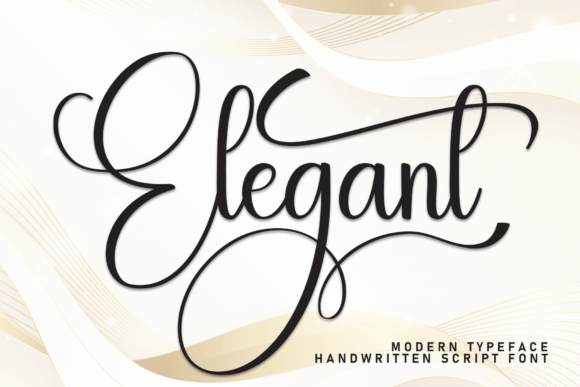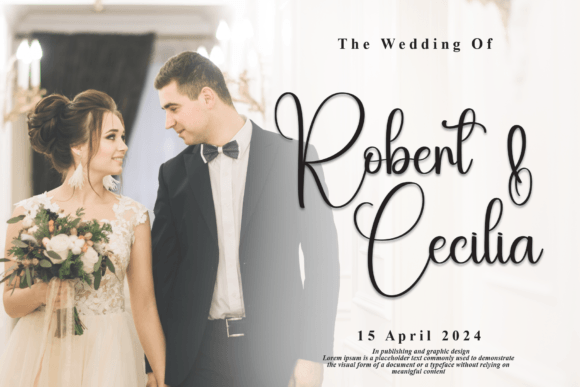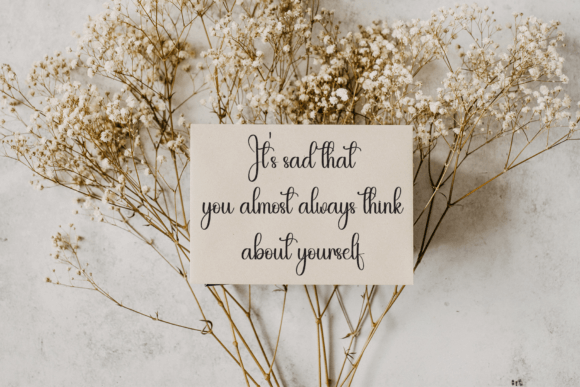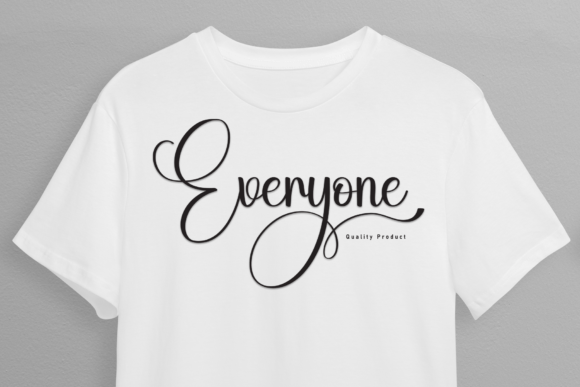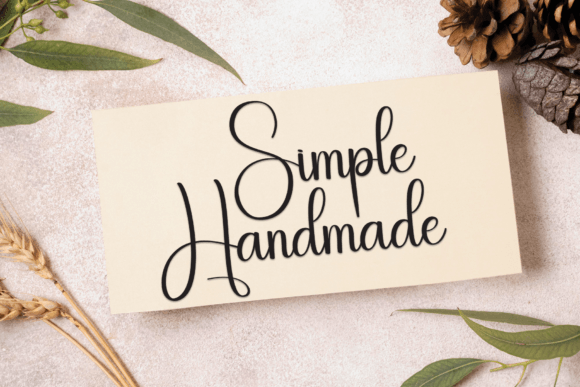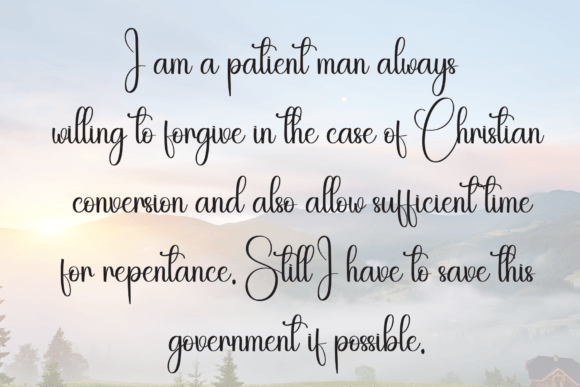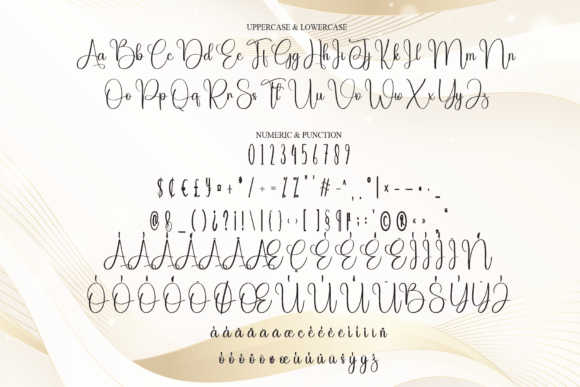
Unlock the Magic of Elegant Typography
Have you ever stared at a blank canvas, struggling to find the perfect font to bring your creative vision to life? We’ve all been there. But what if you had a secret weapon to elevate your designs and make them truly unforgettable? Enter the Elegant Font, a stylish and modern script font that’s sure to leave a lasting impression.
This versatile font is perfect for adding a touch of sophistication to your creative projects, from wedding invitations to branding materials. With its elegant flair, you’ll be able to convey a sense of refinement and luxury that’s sure to captivate your audience. Whether you’re a seasoned designer or just starting out, the Elegant Font is a valuable addition to your toolkit – and with its endless possibilities, the results will speak for themselves.
Elegant Font Key Features
- Size: Elegant Font is designed to be highly legible at various font sizes, with optimal readability at 10pt to 24pt.
- Unique Characteristics: Elegant Font features a unique blend of elegance and sophistication, with subtle flair and ornate details that set it apart from other fonts in its class.
- Language Support: Elegant Font includes comprehensive language support, covering over 100 languages, including Latin, Cyrillic, Greek, and many non-Latin scripts.
- Font Variations: Elegant Font comes in a range of weights, from Light to ExtraBold, allowing designers to create a wide range of visual effects and moods.
Elegant Font Review
Overall, I’m quite impressed with the Elegant Font, but as with any font, it’s not perfect. ✨ Here are some things that work well:
- The Elegant Font has a beautiful, sleek design that’s perfect for high-end branding and marketing materials.
- The font is highly legible, making it easy to read even in smaller sizes.
- The font family includes a wide range of weights and styles, giving designers plenty of options for customizing their designs.
- The Elegant Font is highly versatile and works well for a variety of applications, from web design to print materials.
- The Elegant Font can be a bit too ornate for some designs, making it difficult to read in certain contexts.
- The font may not be suitable for body text, as it can be overwhelming in large quantities.
- The font is not optimized for mobile devices, which can lead to display issues in certain situations.
Overall, I think the Elegant Font is a great choice for designers who need a high-end, elegant font for their projects. While it has some limitations, its unique design and versatility make it a valuable addition to any designer’s toolkit.
Tips for Getting the Most Out of Elegant Font
Use Elegant Font in combination with other design elements, such as images and graphics, to create a visually appealing design.
Experiment with different font sizes and styles to create a professional look.
Use Elegant Font in headings and titles to draw attention and create a sense of hierarchy in your design.
Common Use Cases for Elegant Font
Elegant Font is ideal for use in:
Business cards and letterheads
Wedding invitations and event materials
Corporate presentations and reports
Editorial and publishing materials